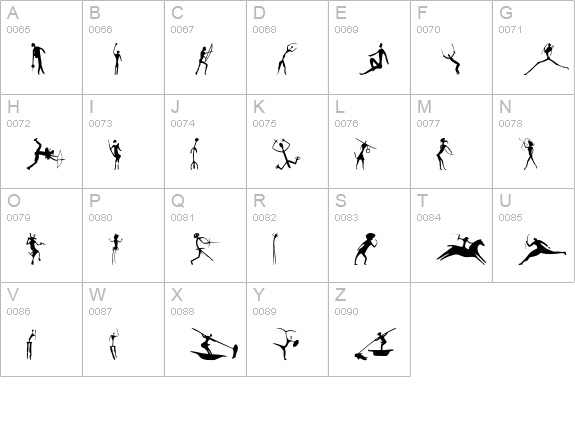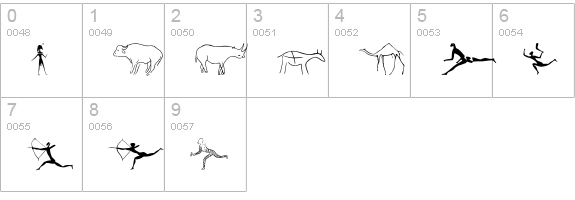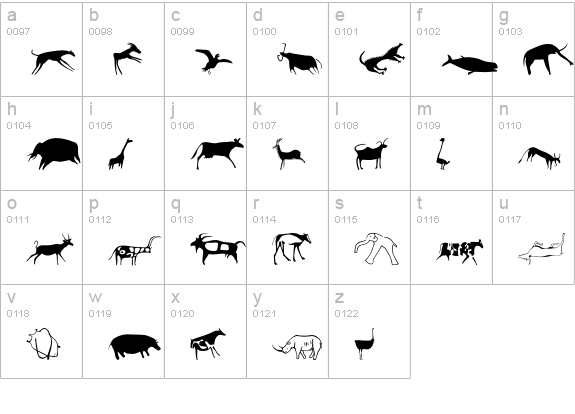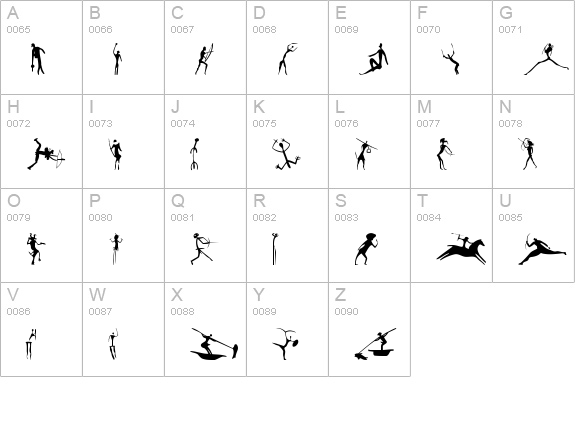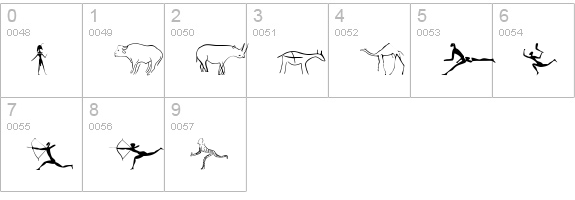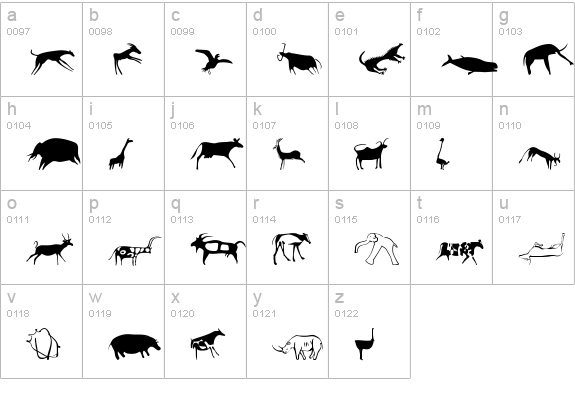
P22Petroglyphs-African Font Details
P22Petroglyphs-African is a captivating and culturally rich font that pays homage to the ancient art form of African petroglyphs. With its intricate and detailed design, this font transports you back in time, allowing you to experience the beauty and mystery of these ancient rock carvings. Every curve and line in P22Petroglyphs-African tells a story, reflecting the diverse and vibrant cultures of Africa. From symbols representing animals and nature to human figures and abstract shapes, this font captures the essence of African heritage. Whether you are designing a project related to African history, art, or simply seeking a unique and visually stunning font, P22Petroglyphs-African is the perfect choice. What makes this font even more appealing is that it is freely available to download at FontsMarket.com. This means that you can effortlessly incorporate the essence of African petroglyphs into your designs without any cost. Whether you are a professional designer, a student, or simply someone with a passion for typography, the accessibility of this font allows you to explore and experiment with its unique aesthetic. P22Petroglyphs-African is not just a font, but a testament to the rich cultural heritage of Africa. It is a tool that empowers you to express your creativity while celebrating the ancient art forms that have shaped our world. Download P22Petroglyphs-African today and embark on a journey through time and culture.